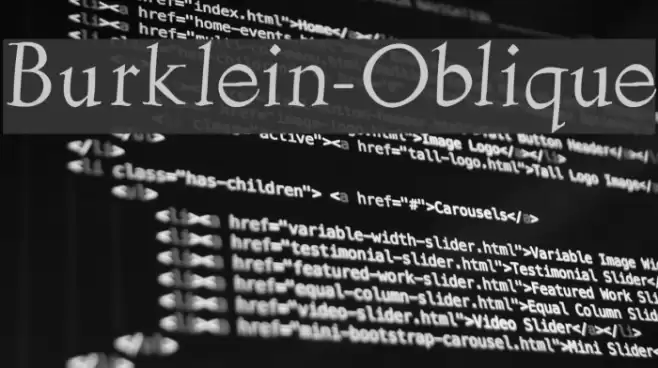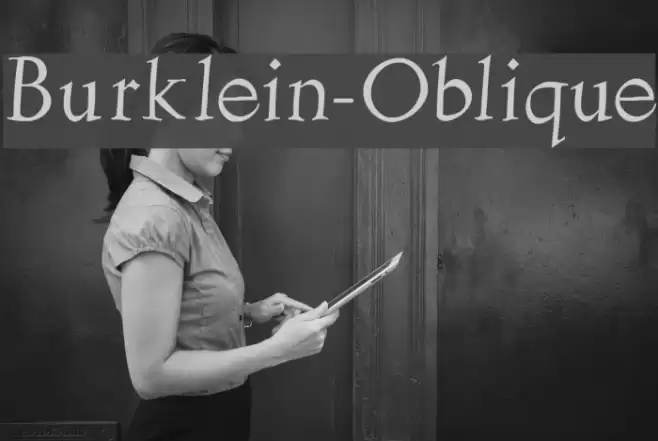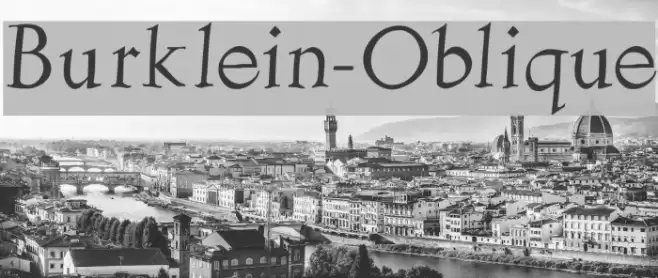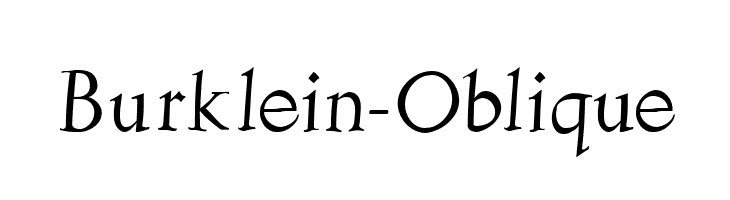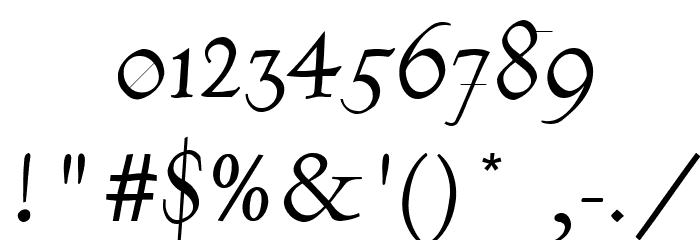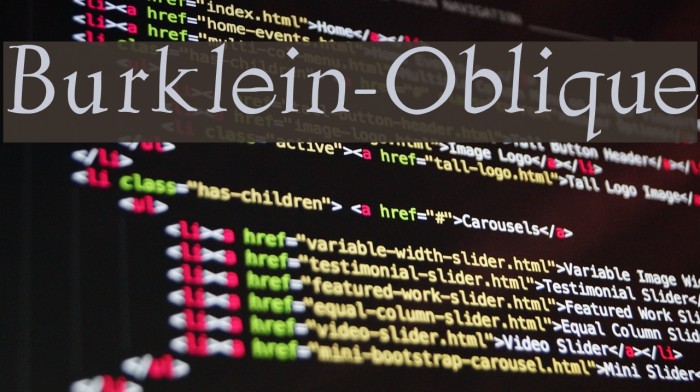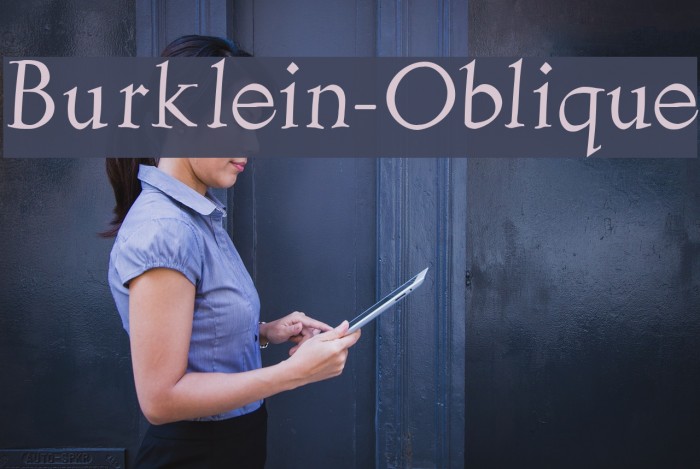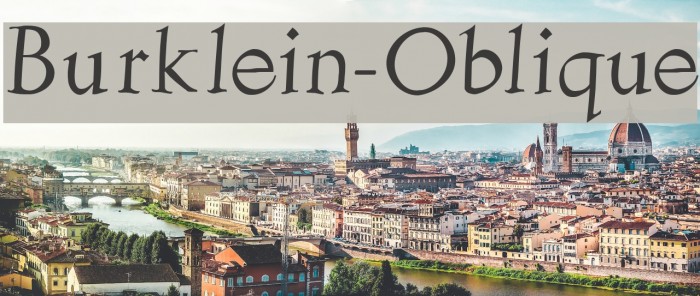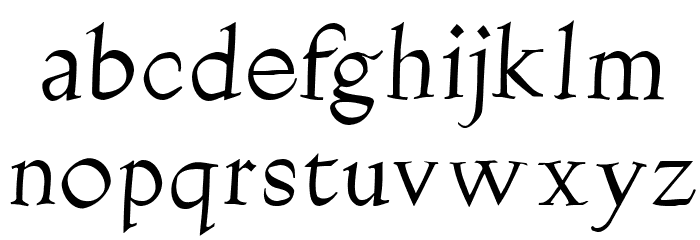
Burklein-Oblique Font
Burklein-Oblique Description
This font features an elegant and slightly whimsical style, characterized by its oblique orientation and flowing curves. The uppercase letters exhibit a classic serif design with a slight slant, giving them a dynamic and sophisticated appearance. The lowercase letters maintain a consistent style, with smooth transitions and a graceful flow. The numerals are distinct and easy to read, complementing the overall aesthetic. Special characters are well-integrated, maintaining the font's cohesive look. This font's unique blend of traditional serif elements with a modern twist makes it versatile for various design applications.
An elegant oblique serif font with a dynamic and sophisticated style from Uncategorized fonts.
- Proposed Projects: Ideal for use in branding, editorial design, invitations, and elegant signage.
- Overall Style: Classic
- Use Case: Headlines, Logos, Invitations